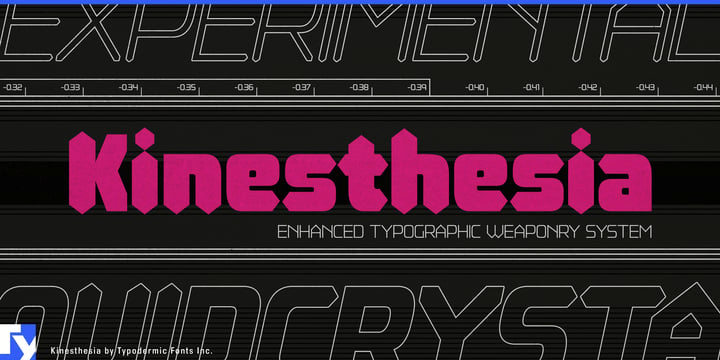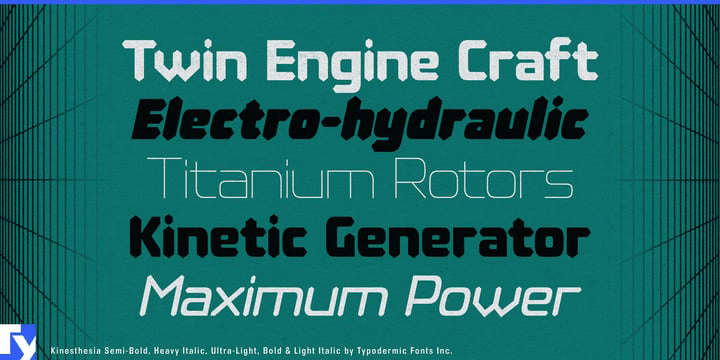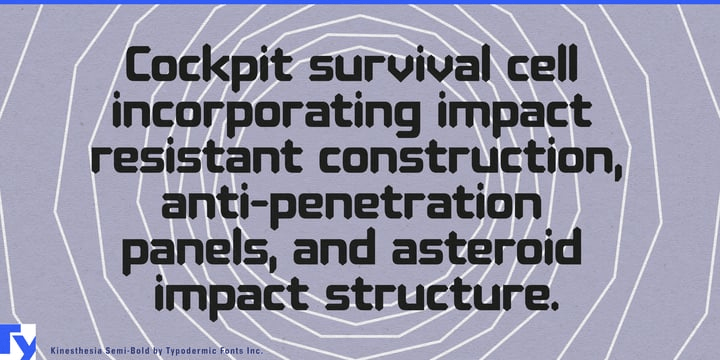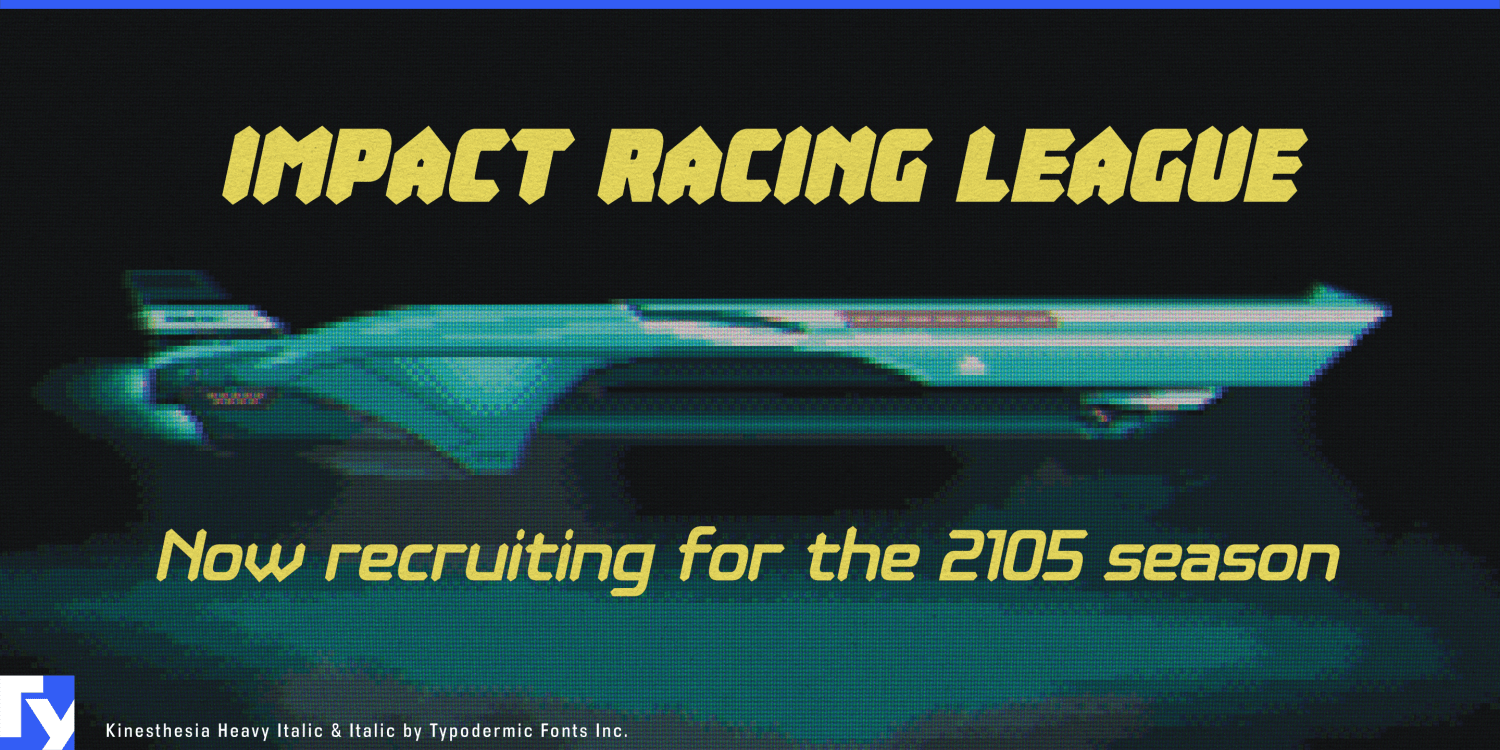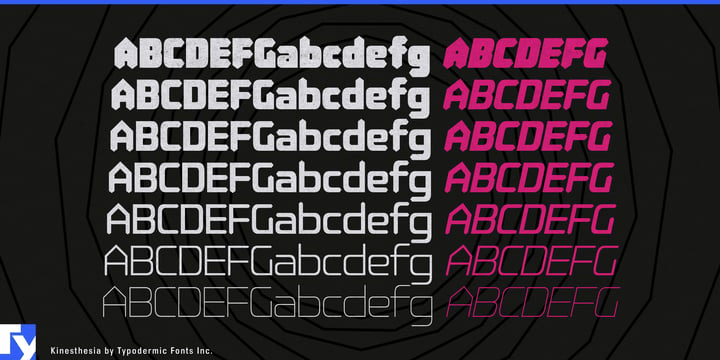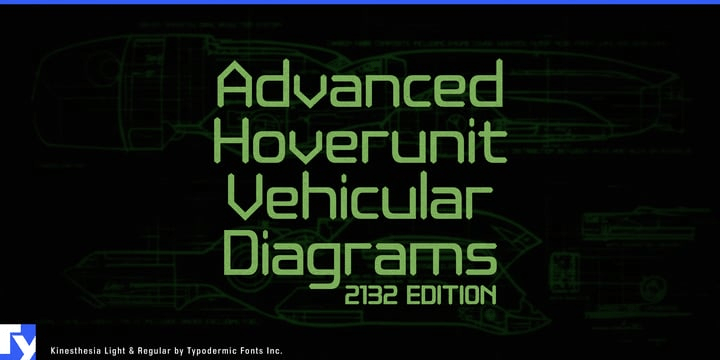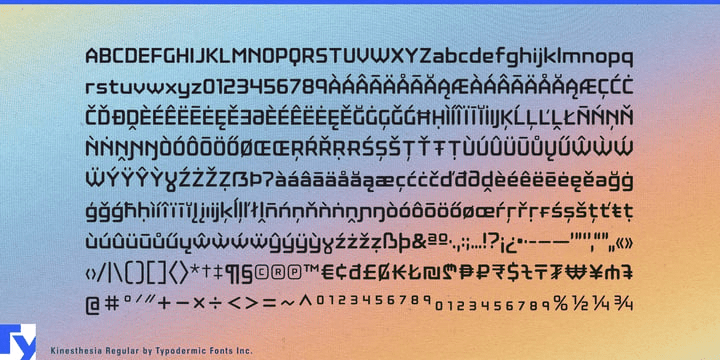
Kinesthesia
Buy NowPrecision equipment has to communicate control and accuracy without disappearing into generic industrial typography. Kinesthesia gives that world a more distinctive display language. Its angular construction and diamond-shaped stroke endings suggest both electronically segmented readouts and surfaces cut by a precision tool; the result feels measured and machined at the same time.
Metrology equipment is a natural fit. Digital calipers, laser measuring systems, torque instruments, machine probes and dimensional-inspection hardware can use Kinesthesia for instrument names, product families, model designations and trade-show graphics, while a quieter companion face handles measurements, instructions and calibration data.
Precision machining extends the same visual logic into CNC tooling, carbide inserts, end mills, tool holders and cutting systems. Series names and catalogue headings can sit comfortably beside beveled metal, machined edges and tightly controlled geometry without relying on the usual aggressively industrial lettering.
Performance measurement provides a more dynamic branch. Cycling power meters, race-timing equipment, lap timers, telemetry systems and sports-testing hardware can use the upright styles for equipment families and the italics for model variants, performance graphics and race-oriented campaigns. Machined wheels, bicycle components and other precision-finished parts offer a related product application.
Seven weights with matching italics give Kinesthesia enough range to build a complete display hierarchy rather than a single dramatic headline. It is a family for things that measure, cut, test and quantify; metrology instruments, machining tools, timing systems and precision components all give its diamond-ended geometry a physical reason to exist.